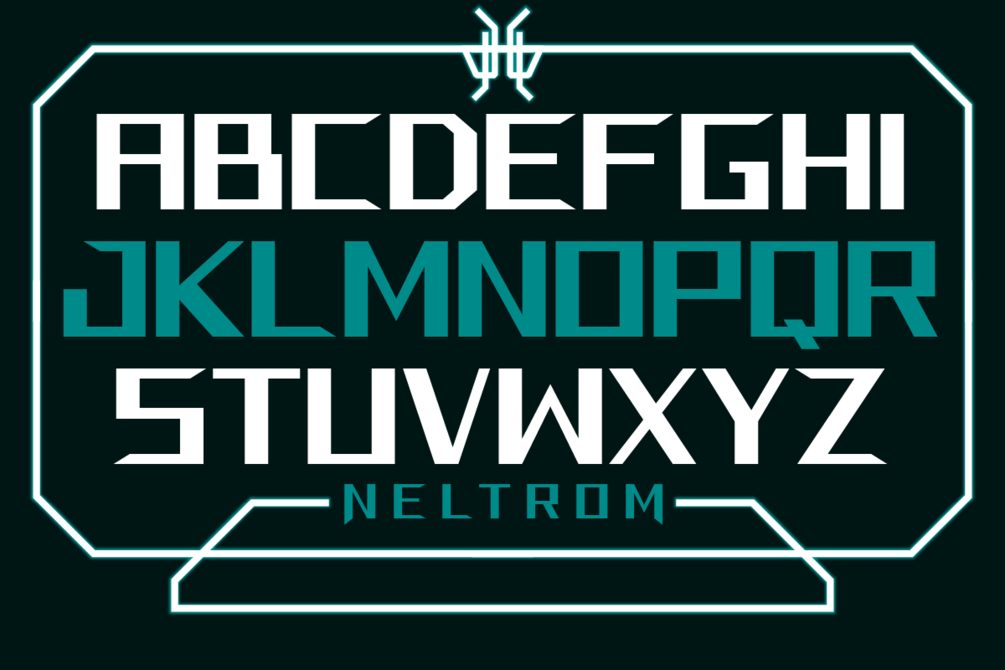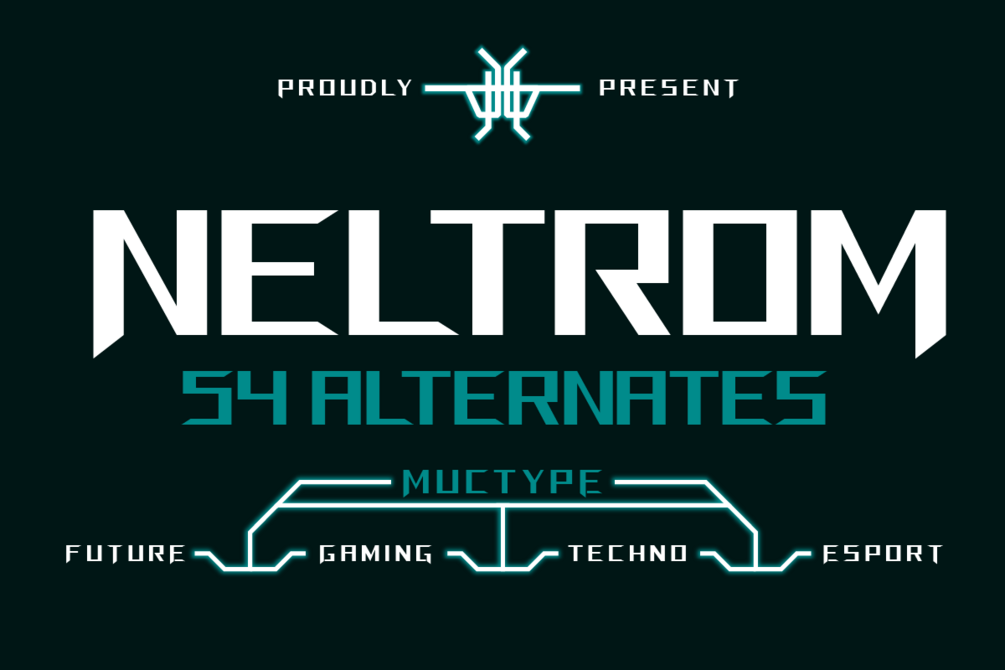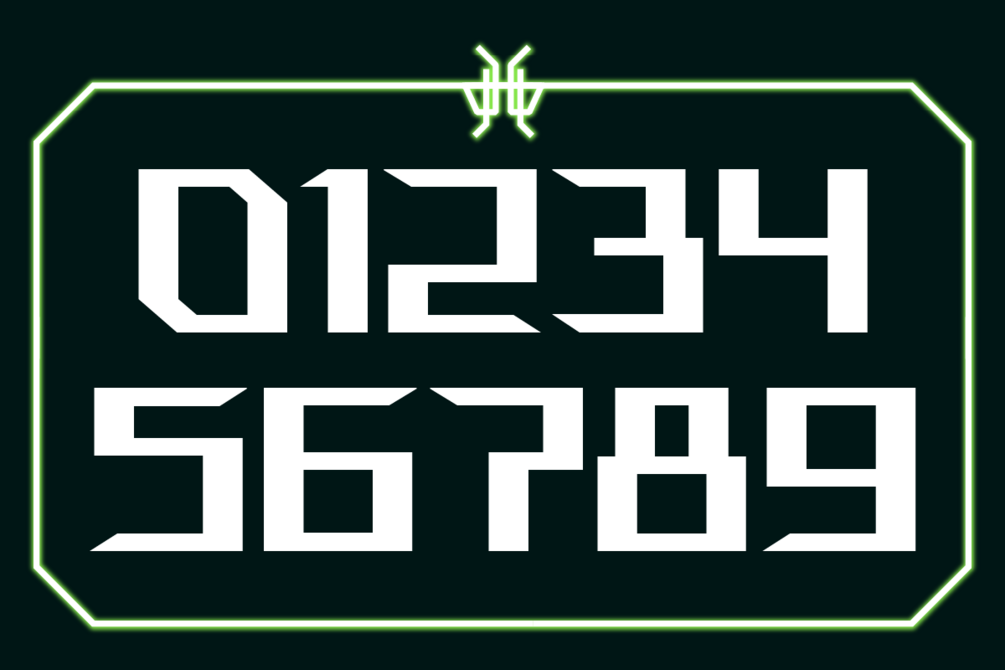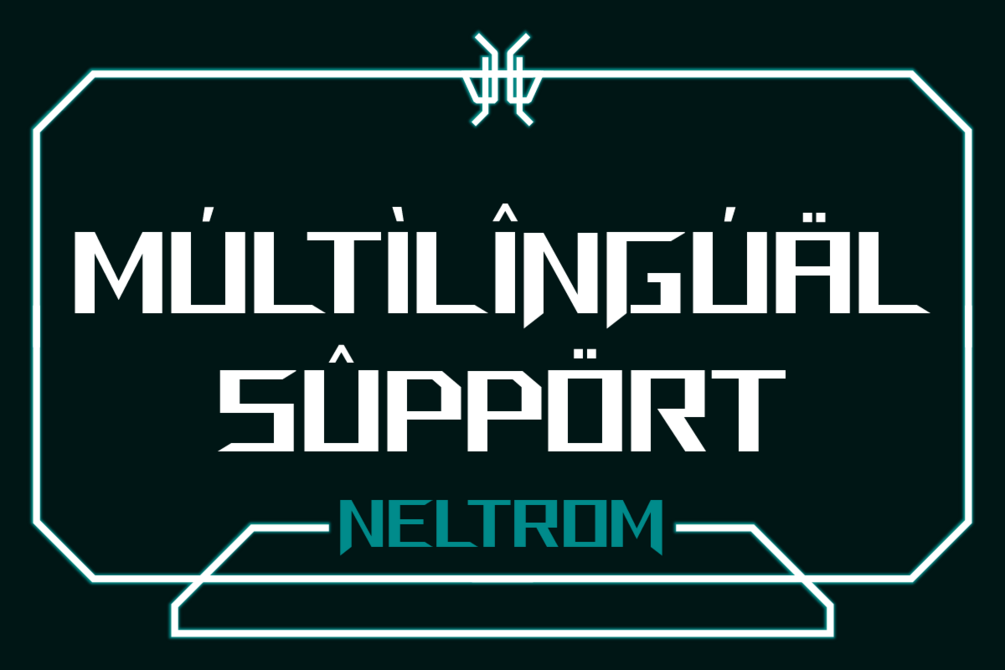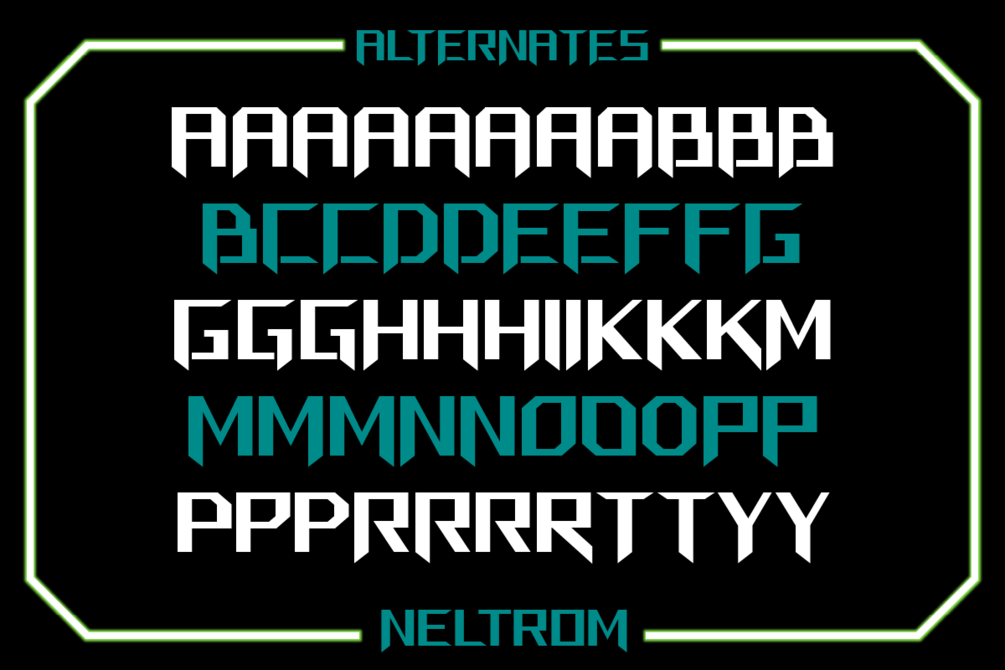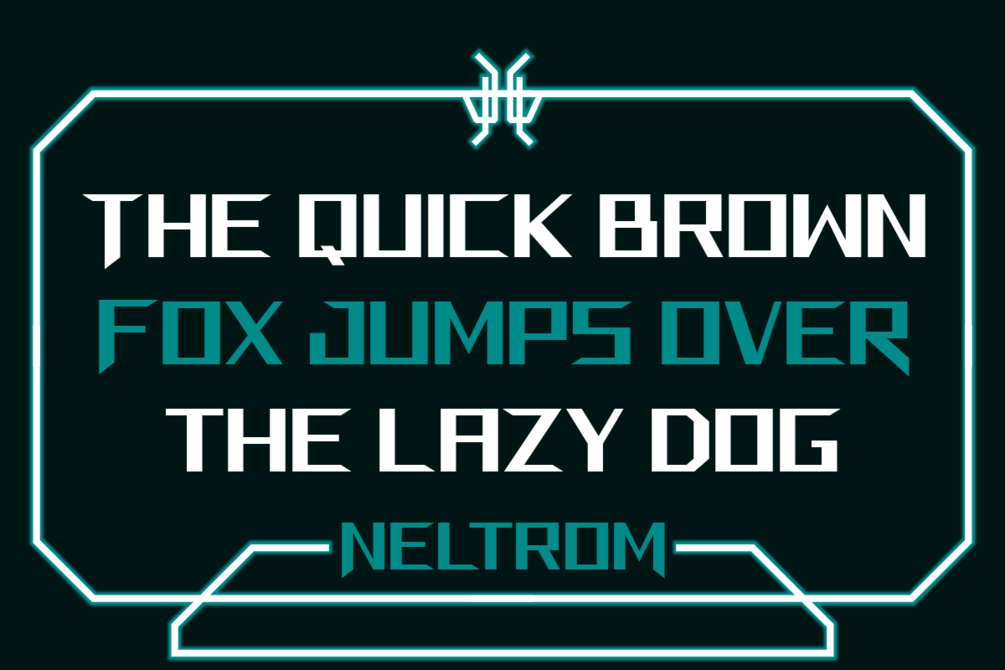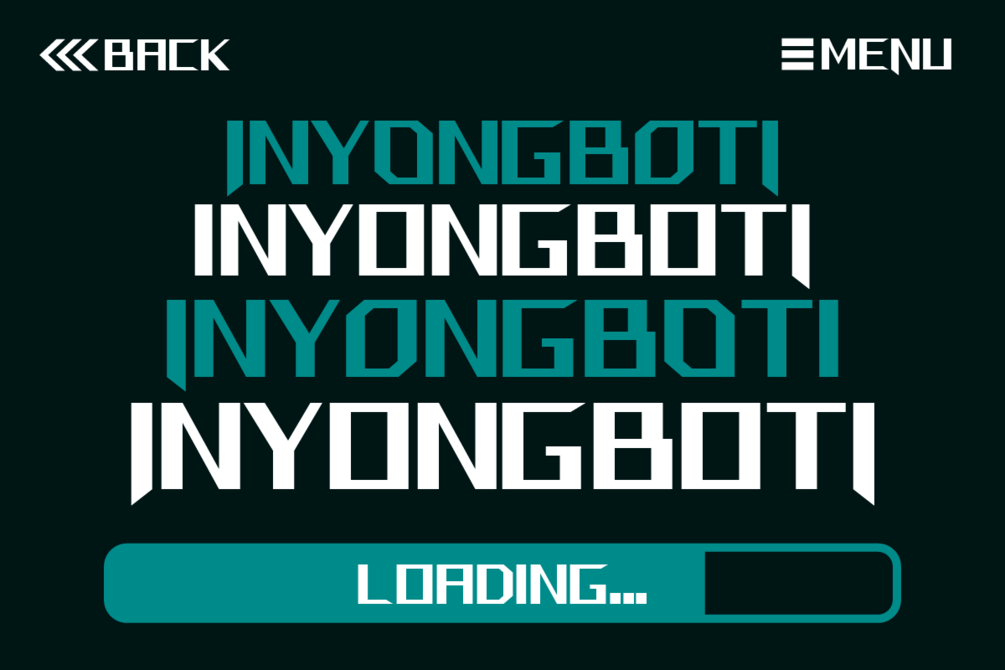
NELTROM – Futuristic Techno Display Typeface
NELTROM is a modern futuristic display typeface crafted for high-impact designs in gaming, technology, esports, and digital branding. With sharp geometric edges, sci-fi styling, and an advanced industrial aesthetic, NELTROM delivers a powerful and high-tech visual identity.
Featuring 54 alternates, this typeface offers exceptional flexibility for creating unique wordmarks, logos, UI displays, title screens, streaming overlays, and competitive esports branding. Each character is built with precise angles and sleek forms, creating a dynamic and forward-thinking look ideal for next-gen creative projects.
Perfect for designers who need a bold, clean, and technologically inspired display type for gaming merch, tournament graphics, cyberpunk posters, tech startup branding, and digital marketing assets.
- Uppercase, Lowercase, Numerals & Punctuations
- 54 Alternates
- Multilingual support